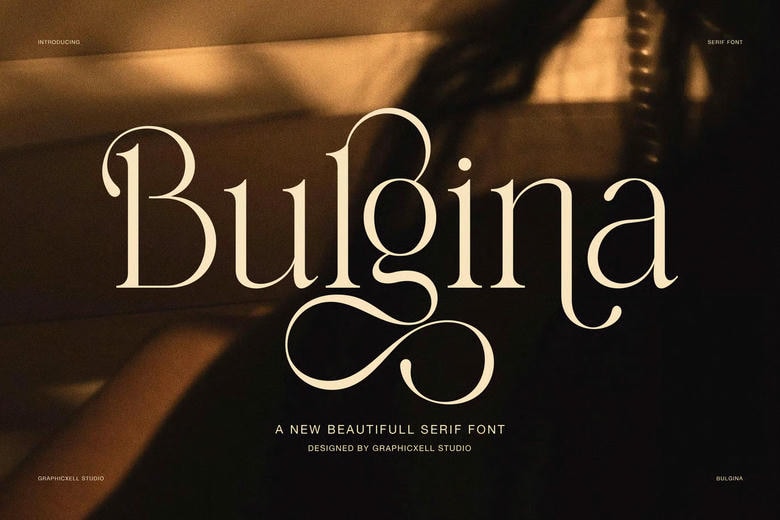
Bulgina Font
Bulgina is an elegant serif display font that delivers sophistication, warmth and expressive beauty. Inspired by the old typography and the elegant modern aesthetics, this font combines graceful curves with confident letterforms. As a result, Bulgina possesses a timelessness and is visually striking in contemporary design projects.
This serif font has a smooth contrast, delicate terminals and flowing detail. Moreover, the refined strokes make a luxurious rhythm and give the headlines and brand identities more appeal. Because of the expressive alternates and elegant ligatures, Bulgina gives designers the ability to create unique typography that feels personal and purposeful.
Bulgina is perfect when branding projects require elegance and understanding. For example it works beautifully in fashion editorials, interior design studios, boutique logos and luxury skincare packaging. In addition, the font performs exceptionally well when it comes to hotel branding, galleries, event promotions and lifestyle visuals. Its elegant personality lends itself to minimalist layouts as well as richly styled compositions.
Bulgina Serif Font